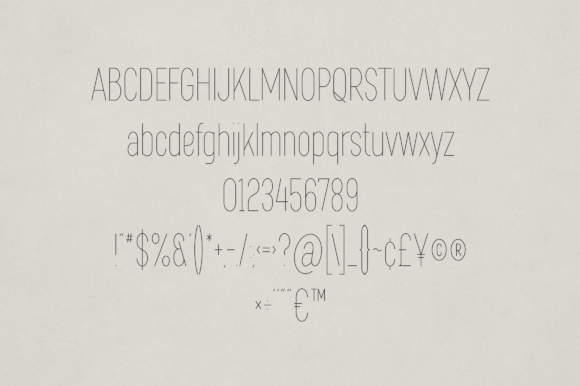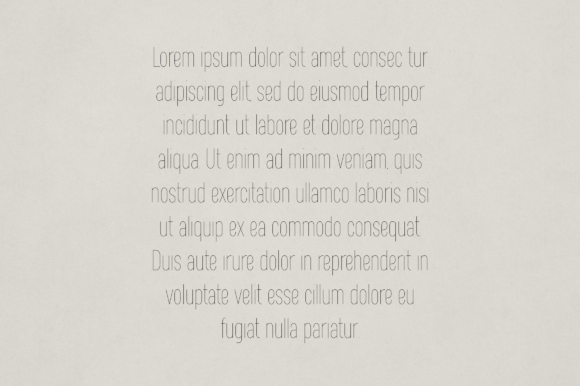
Gardenia Font: Elevate Your Design with Elegance and Versatility
Are you tired of using the same old fonts for your design projects? Look no further than Gardenia Font, a stunning sans serif font that is sure to make your typography truly unique. With its elegant and versatile design, Gardenia Font is perfect for a wide range of applications, from logo design and branding to product packaging and magazine headers.
What is Gardenia Font?
Gardenia Font is a beautifully crafted sans serif font that exudes elegance and sophistication. Its clean lines, subtle curves, and precise letter spacing make it perfect for use in a variety of design projects. Whether you’re looking to create a stunning logo, add a touch of style to your product packaging, or simply want to elevate your typography, Gardenia Font is the perfect choice.
Key Features of Gardenia Font
So, what makes Gardenia Font so special? Here are just a few of its key features:
- Elegant and Versatile Design: Gardenia Font features a sleek and sophisticated design that is perfect for a wide range of applications.
- Sans Serif Style: The font’s sans serif style makes it easy to read and perfect for use in digital and print materials.
- Precise Letter Spacing: The font’s precise letter spacing ensures that your text looks clean and professional.
- Wide Range of Applications: Gardenia Font is perfect for use in logo design, branding, product packaging, magazine headers, and more.
Why Choose Gardenia Font?
So, why should you choose Gardenia Font for your design projects? Here are just a few reasons:
- Unique and Eye-Catching: Gardenia Font is sure to make your typography stand out from the crowd.
- High-Quality Design: The font is beautifully crafted with precise attention to detail.
- Easy to Read: The font’s sans serif style and precise letter spacing make it easy to read.
- Versatile: Gardenia Font can be used in a wide range of applications, from digital to print.
How to Use Gardenia Font
Using Gardenia Font is easy! Here are a few tips to get you started:
- Logo Design: Use Gardenia Font to create a stunning logo that will make your brand stand out.
- Branding: Use the font to create a consistent brand identity across all of your marketing materials.
- Product Packaging: Add a touch of style to your product packaging with Gardenia Font.
- Magazine Headers: Use the font to create eye-catching magazine headers that will grab readers’ attention.
Tips and Tricks for Working with Gardenia Font
Here are a few tips and tricks to help you get the most out of Gardenia Font:
- Experiment with Different Sizes: Try using Gardenia Font in different sizes to create visual interest.
- Play with Color: Experiment with different colors to find the perfect match for your design.
- Use it with Images: Use Gardenia Font as a stylish text overlay to add depth and interest to your background images.
- Is Gardenia Font easy to read?: Yes, Gardenia Font is designed to be easy to read, making it perfect for use in digital and print materials.